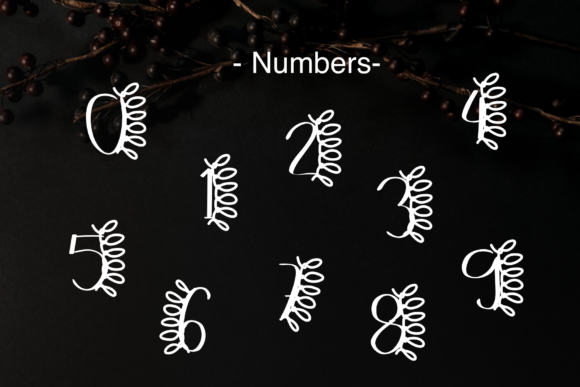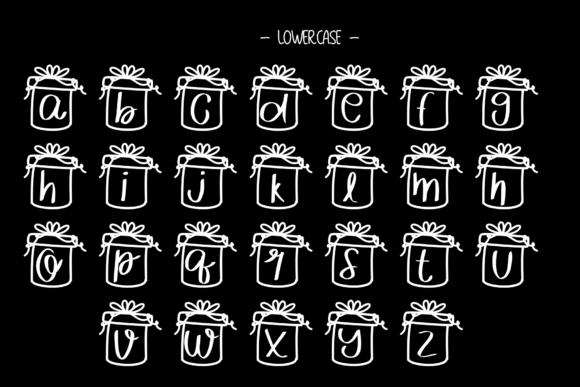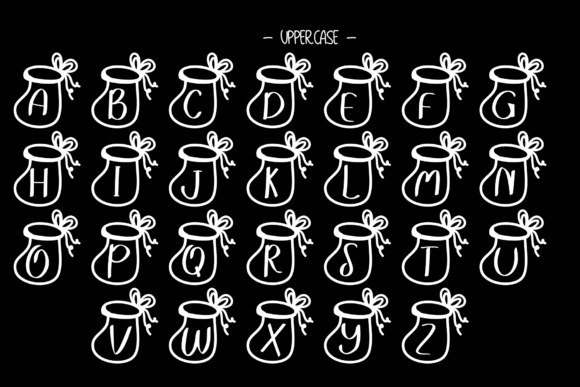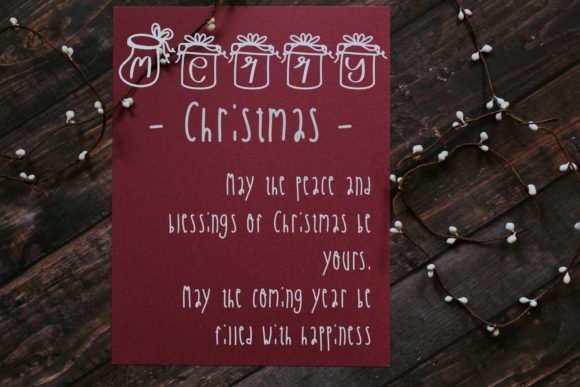
Introduction to Chris Gifts Font
Have you ever stared at a blank canvas, trying to bring your creative idea to life, only to feel stuck? The blank page can be intimidating, but what if you had the perfect tool to spark your imagination? For designers, finding the right font can be a game-changer. That’s where Chris Gifts Font comes in – a unique and adorable decorative font that’s about to become your new favorite design resource.
Chris Gifts Font is a masterfully designed font that’s perfect for adding a touch of whimsy to your creative project. With its transparent background and high-quality design, it’s a valuable asset for any designer looking to elevate their work. And the best part? It’s available for a free download, making it an accessible resource for designers of all levels.
- High-quality design resource with a transparent background, perfect for creative projects
- Unique, handcrafted design with a personal touch, ideal for special occasions and gifts
Honest Review: Chris Gifts Font
- ✨ The high-quality design makes it perfect for any creative project, from invitations to social media graphics.
- ✨ It has a transparent background, which makes it easy to customize and use in various design contexts.
- ⚠️ The font is quite simple, which might make it less versatile for complex designs.
- ⚠️ It’s not ideal for body text, as it can be difficult to read in larger quantities.
The Chris Gifts Font is perfect for a variety of creative projects, including social media graphics, presentations, and documents. Its high-quality design and transparent background make it ideal for creating professional-looking designs with a clean and minimalist look.
Compared to Chris Gifts Font, Great Vibes Font has a more refined and polished look, making it suitable for high-end designs. However, it lacks the playful, handwritten feel of Chris Gifts Font.
Compared to Chris Gifts Font, Pacifico Font has a more laid-back and casual feel, making it suitable for designs that require a relaxed tone. However, it lacks the whimsical, handwritten feel of Chris Gifts Font.